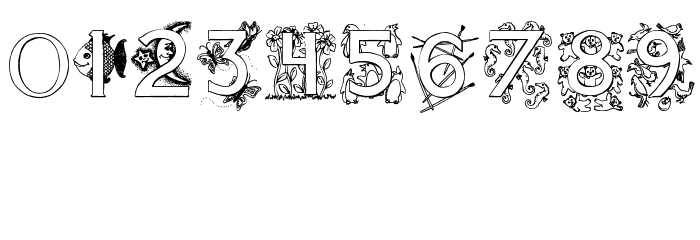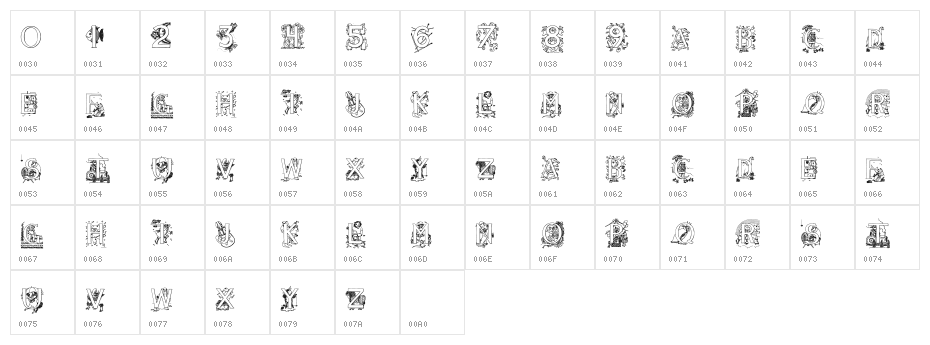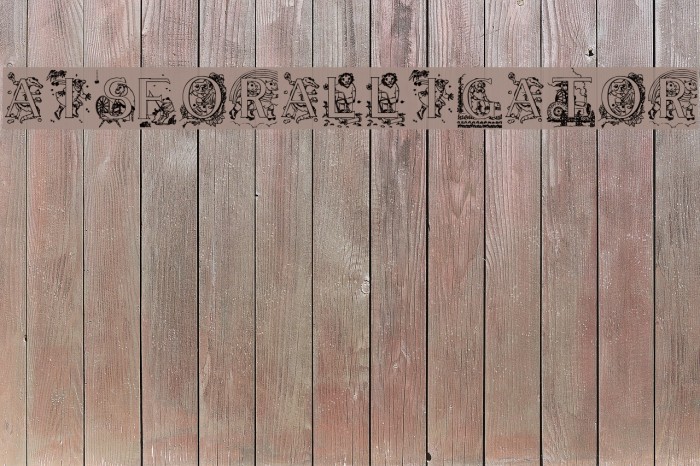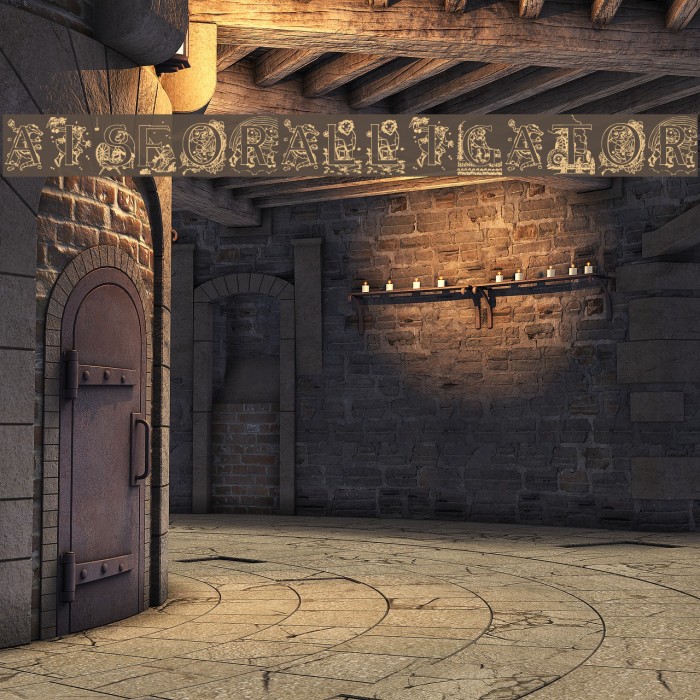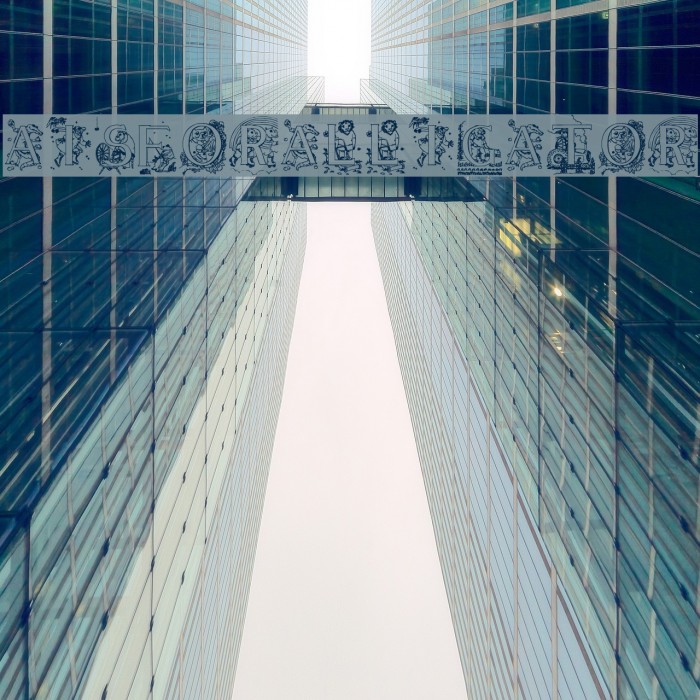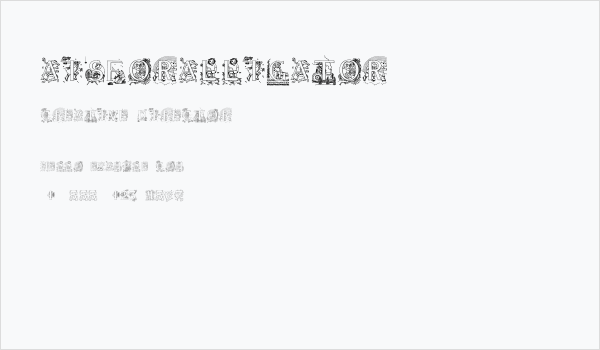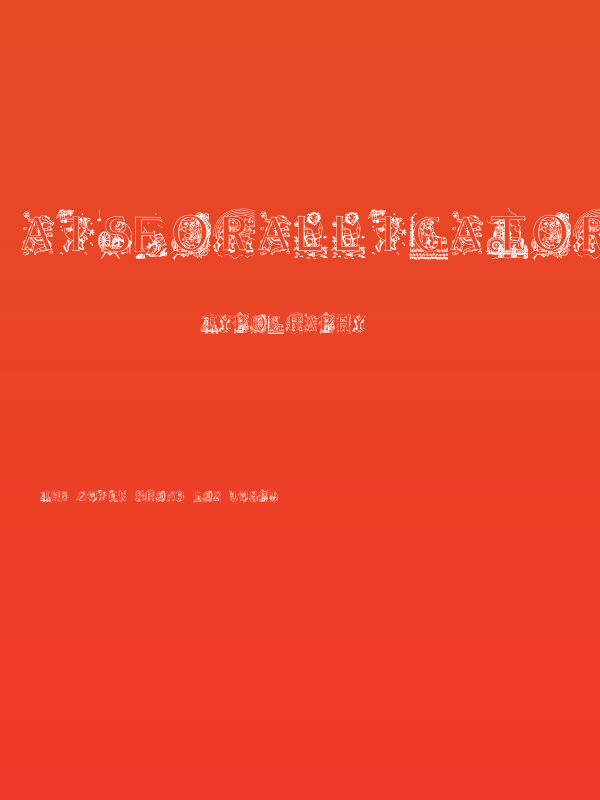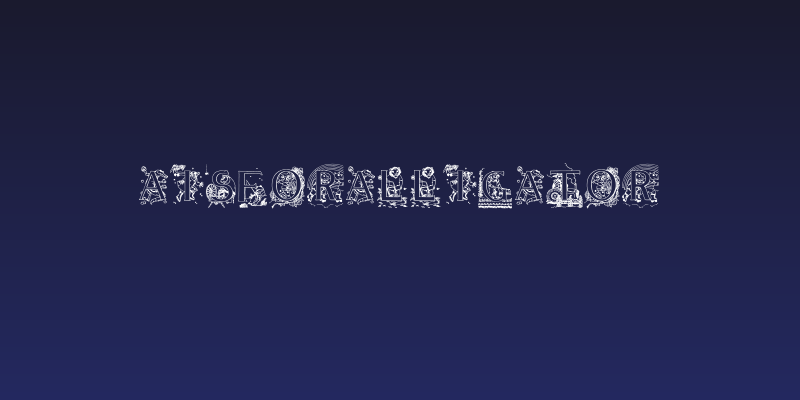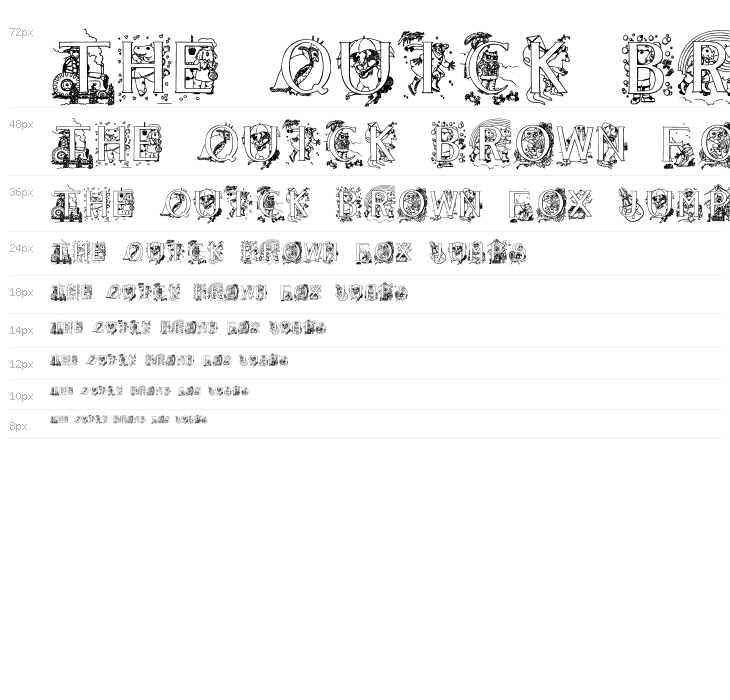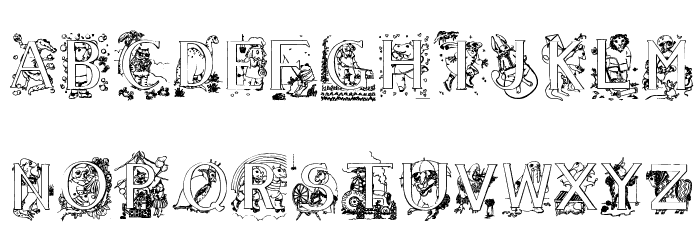
AisForAlligator Font
AisForAlligator Description
This decorative font features intricate illustrations integrated into each character, creating a whimsical and playful aesthetic. Each letter and number is adorned with detailed, nature-inspired motifs, including animals, plants, and other organic elements. The design is reminiscent of vintage storybook illustrations, offering a sense of nostalgia and charm. The characters are bold and eye-catching, making them suitable for creative projects that require a unique and artistic touch. The font's elaborate style is perfect for capturing attention and adding a distinctive flair to any design.
| Proposed Projects | Ideal for children's books, greeting cards, posters, and artistic branding projects. |